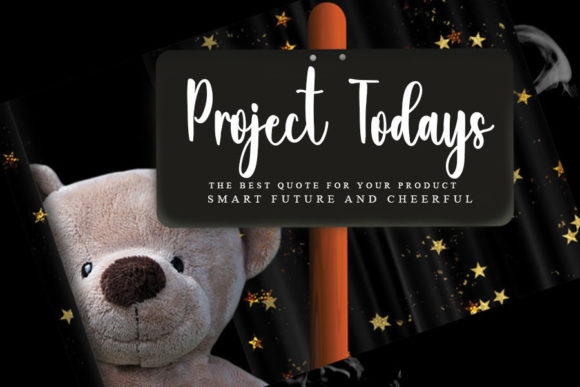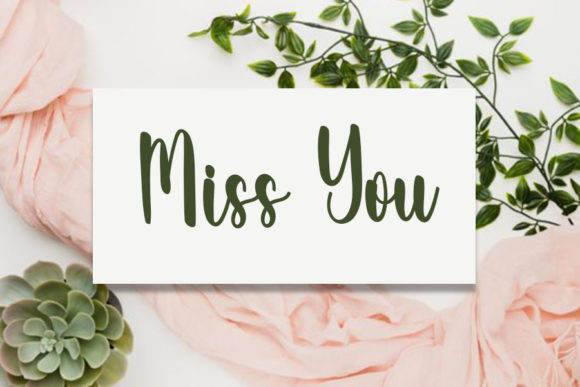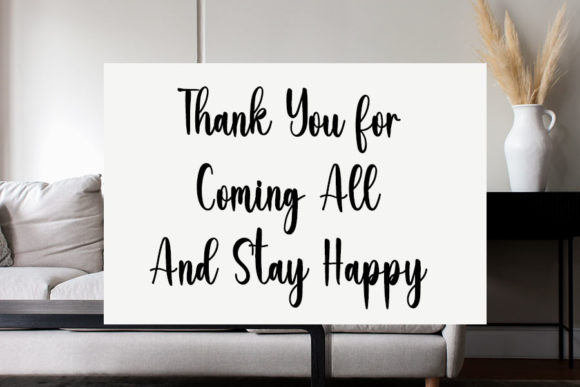
About Handisa Font
Handisa is a delicate, elegant and flowing handwritten font. It has beautiful and well balanced characters and as a result, it matches a wide pool of designs. Add it to your most creative ideas and notice how it makes them come alive!